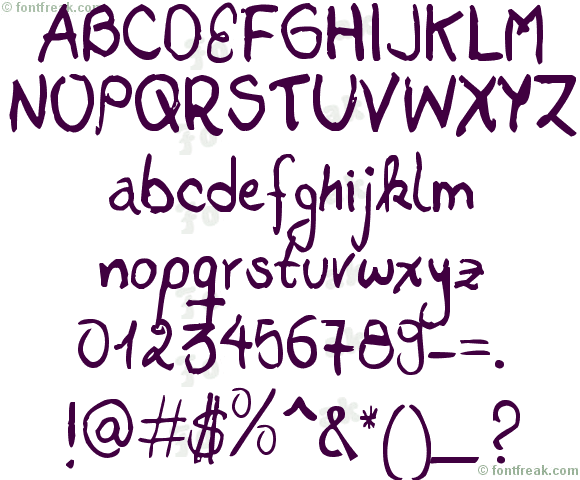
Gato
About Gato
Gato is a whimsical display font designed by Juan Casco in 2010, characterized by its playful and artistic flair. As a decorative typeface, Gato features a unique blend of rounded and elongated letterforms that create a friendly and approachable aesthetic. The stroke weight varies throughout the characters, lending a lively quality that enhances its visual appeal. The spacing between letters is generous, allowing for easy readability while maintaining a casual elegance. Decorative elements, such as exaggerated curves and playful flourishes, contribute to the font's distinctive personality, making it an eye-catching choice for various creative projects.
This font is particularly well-suited for use in wedding invitations, where its charming style can add a touch of romance. It also shines in children's book covers, where the friendly and fun nature of Gato can captivate young readers. Additionally, restaurant menus can benefit from Gato's inviting look, making dishes appear more appealing. Graphic designers looking to create vibrant posters or promotional materials will find Gato to be an excellent choice, as it stands out while remaining legible. Content creators seeking to add a unique flair to their branding or social media graphics will also appreciate the versatility of this font.